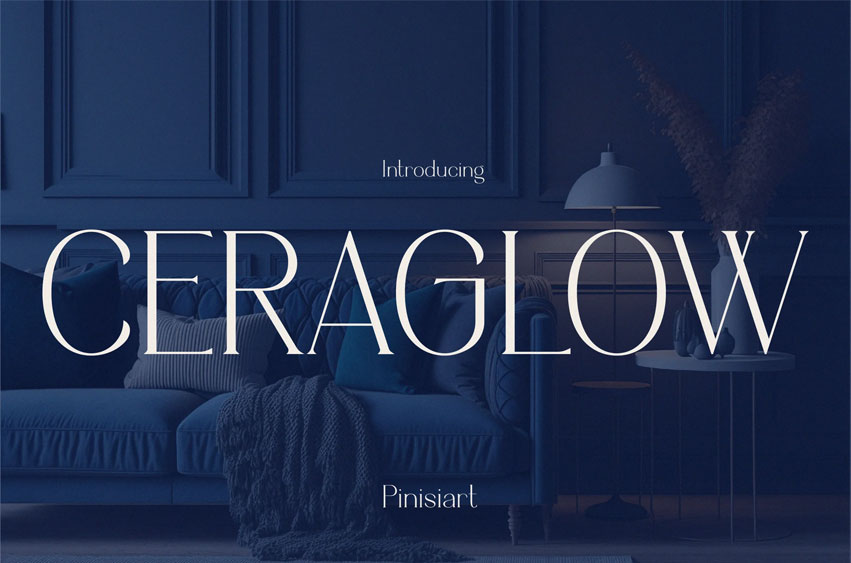
Ceraglow Font is a modern, elegant typeface that blends high contrast strokes with refined geometric balance, creating a luxurious and timeless look. Each letter flows with graceful precision, featuring subtle curvature and elongated forms that evoke sophistication. Designed for visual harmony, its clean spacing and slender terminals make it ideal for fashion branding, editorial layouts, and minimalist web design. CERAGLOW radiates a calm yet confident personality—perfect for projects that demand quiet luxury and visual clarity.
Whether you’re crafting a high-end fashion magazine, a modern interior design brand, or a minimalist social campaign, CERAGLOW delivers an aura of refinement. Its elegance captures attention without excess, guiding the reader’s eye with poise and restraint. Use it for logos, posters, websites, app UI, or lookbooks where contemporary grace meets enduring design value. CERAGLOW helps your message feel timeless, curated, and beautifully intentional.
- Elegant proportion with high contrast lines for a luxurious aesthetic
- Smooth curves and refined details for a polished professional tone
- Balanced letter spacing that enhances readability and elegance
- Ideal for branding, editorial design, product packaging, and web typography
- Brings a modern yet classic feeling to both digital and print works